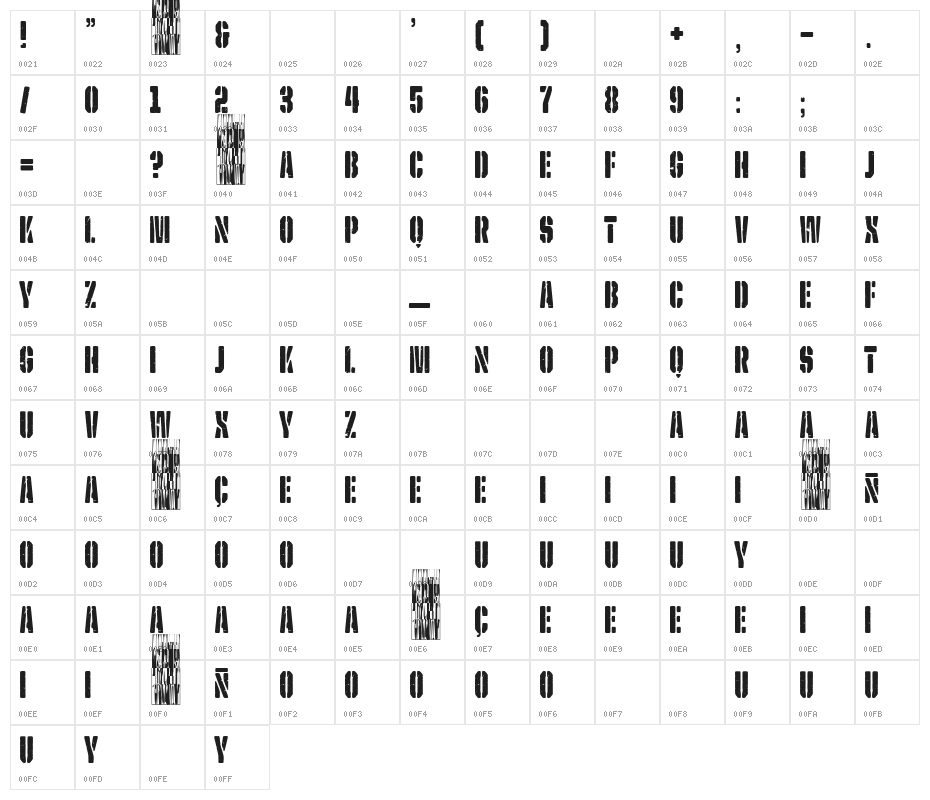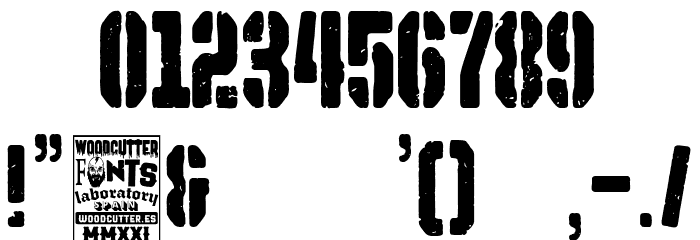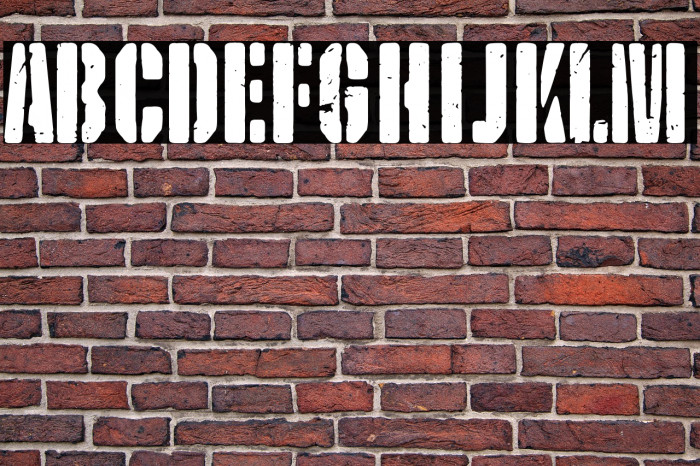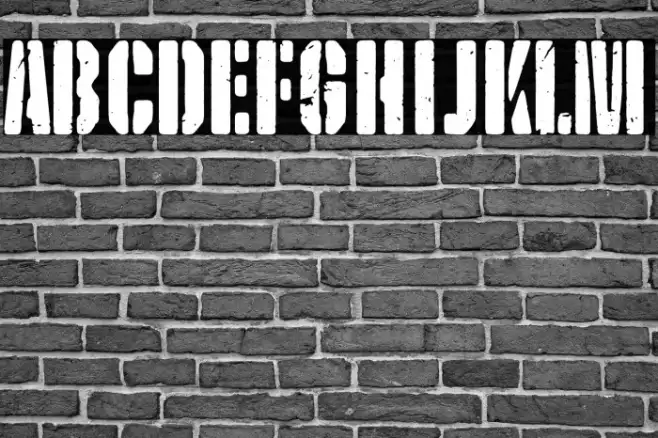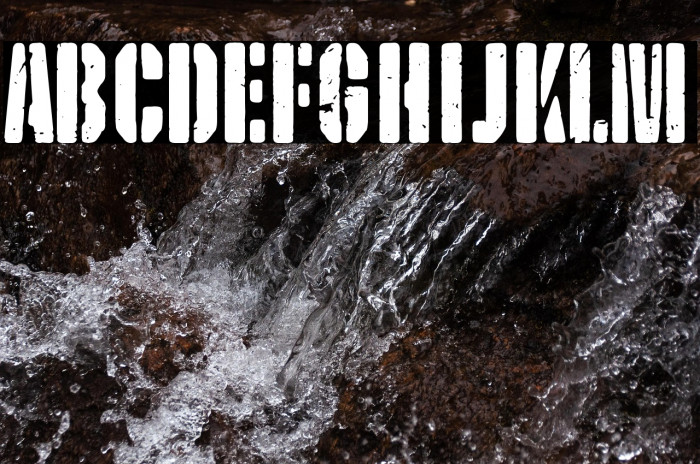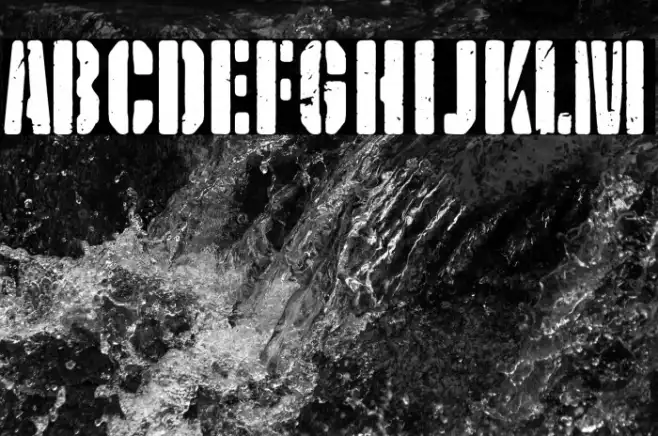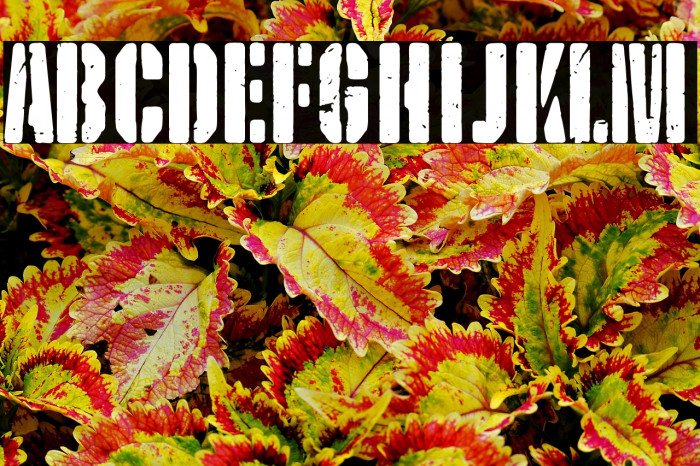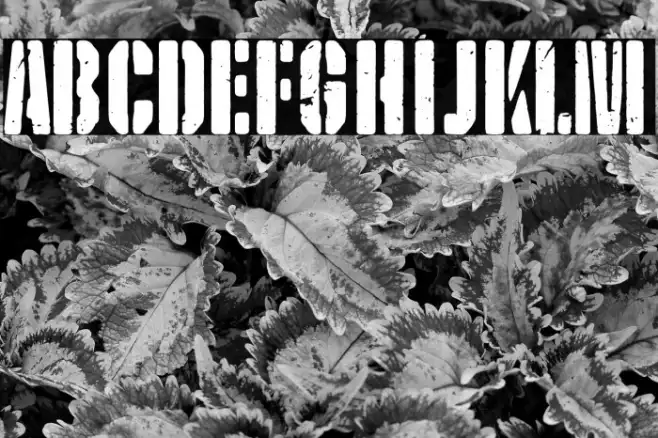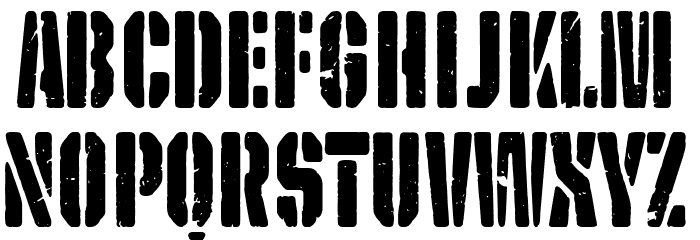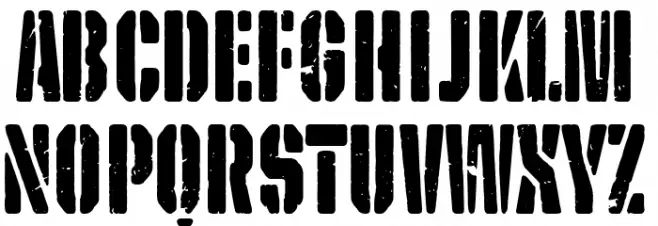
Military Poster Font
Military Poster Description
This font features a bold, distressed style reminiscent of vintage military stencils. The characters are robust and blocky, with a rugged texture that gives them a worn, weathered appearance. The uppercase letters are prominent and commanding, while the numbers and special characters maintain the same bold, impactful design. This font is ideal for creating a strong, authoritative presence in any design, evoking a sense of strength and resilience. The distressed detailing adds a layer of authenticity and historical depth, making it perfect for projects that require a touch of nostalgia or a rugged, industrial feel.
| Proposed Projects | Ideal for military-themed posters, vintage designs, industrial branding, and rugged apparel graphics. |